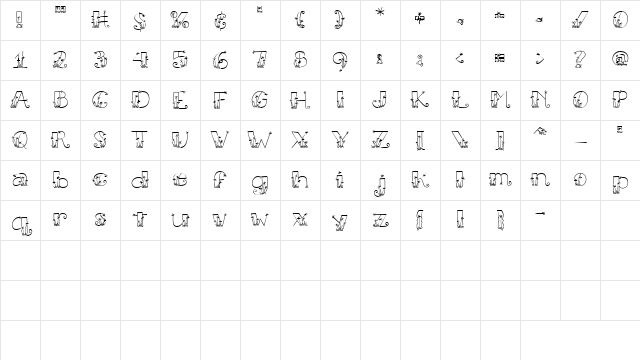
CK Flower Garden Regular Free Font
CK Flower Garden Regular
Design Context for CK Flower Garden
CK Flower Garden is a composed and adaptable typeface that performs quietly and consistently across a wide range of design contexts.
Pro Tip: Use CK Flower Garden in both headline and body roles to test its range before committing to a single application.